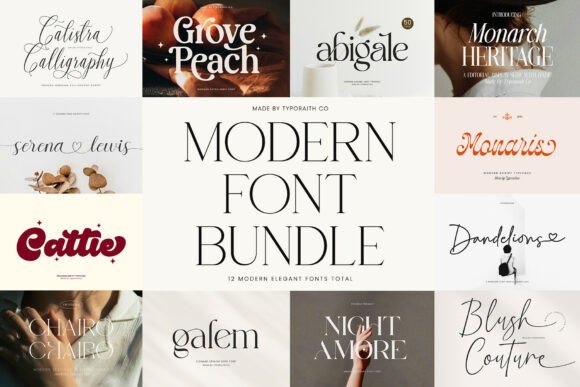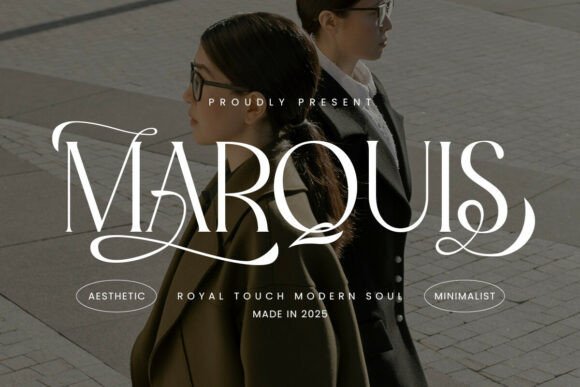
34 Refined Modern Serif Fonts for Editorial and Interface Harmony in 2026
Modern Serif Fonts are finding renewed favor across editorial layouts, boutique packaging, and user interfaces, marrying heritage letterforms with cleaner proportions. This collection presents 34 picks, each annotated with suggested pairings, spacing notes, and best-use scenarios.
1. Modern Bundle Font
Modern Bundle Font
The Modern Bundle collects twelve premium typefaces – a mix of contemporary serifs, refined scripts, editorial cuts and retro-leaning display faces – crafted by Typoraith Co. Each font ships with extended glyph sets, alternates, stylistic sets and thoughtful kerning so layout decisions feel intentional; webfont kits and language support make cross-channel work simpler. If you favor Modern Serif Fonts for brand systems, this package delivers a useful range of weights and optical sizes to match everything from delicate invites to bold mastheads.
My Recommendation: I reach for this bundle when a project needs a cohesive set of type voices that travel from logo to packaging. The mix of serifs, scripts and display faces cuts time spent pairing fonts and ensures consistent tone across materials. Use it for boutique identities, wedding suites, magazines and product launches where a polished typographic toolkit speeds production.
2. Marquis – Elegant Modern Serif Font
Marquis - Elegant Modern Serif Font
Marquis marries a clean geometric skeleton with graceful terminals and soft curves to produce a refined modern serif suited for high-fashion headers and editorial mastheads. The family offers stylistic alternates and refined ligatures so you can add discreet personality without compromising legibility, and its open counters read well at display sizes. The result is a font that feels both sophisticated and deliberately restrained, making it ideal for refined brand expression.
Use Marquis for luxury logos, premium packaging or magazine mastheads where subtle detail matters; it pairs particularly well with a low-contrast sans for body copy. Pay attention to tracking and optical sizing when using heavier weights, and exploit the alternates for monograms or wordmarks to give identity work an unmistakable signature.
My Recommendation: I use Marquis when a design calls for quiet luxury rather than loud ornamentation. Its ligatures and alternates let me craft distinctive wordmarks while keeping copy readable. It’s perfect for fashion brands, boutique packaging, and editorial covers where refined letter shapes carry the brand tone.
3. Modern Font
Modern Font
Modern Font is a high-contrast serif with elongated ascenders and a narrow stance that lends an editorial, cinematic character to headlines and titles. The face favors display use – think book and movie titles, luxury brand marks, or fashion editorials – where a commanding typographic presence is needed without ornate flourishes. Uppercase forms and small-cap support give it sculptural impact in logos and posters.
Tight kerning and crisp terminals make it excellent for logo work and packaging where letter-by-letter control matters, while lighter weights work well for pull quotes and subheads. Pair it with a friendly humanist sans for body text to maintain readability, and deploy webfont versions for consistent reproduction across print and screens.
My Recommendation: I pick this font when a headline must carry the visual weight of a campaign or a title needs to feel cinematic. Its high-contrast shapes read beautifully at large sizes and make strong statements on covers and packaging. Use it for marquee logos, editorial spreads, and identity work that benefits from dramatic, well-crafted serifs.
4. Shelina Modern Font
Shelina Modern Font
Shelina Modern presents a high-contrast serif voice that marries classical proportions with restrained contemporary detailing. The black-and-white promotional look emphasizes its vertical stress, delicate bracketed serifs, and open counters, which together give letterforms both presence and refinement. As part of a curated selection of Modern Serif Fonts, Shelina reads as a confident display face while remaining surprisingly legible at smaller sizes.
These 34 Modern Serif Fonts cover tones from reserved and scholarly to lively and expressive, with practical pairing and spacing guidance so you can match type to a project’s mood and medium. Short samples and setup notes reduce guesswork when moving fonts from concept to production.
Test the recommendations in context, check hinting and variable behavior across platforms, and confirm licensing before deployment. A well-chosen serif can anchor your typography while keeping readability front and center in 2026.